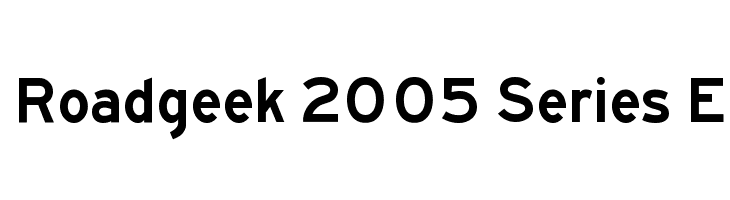
A bold, modern sans-serif font with excellent readability.
设计师偏爱 Noto Sans Thai UI Condensed, GaneshaScript, TitilliumText22L-999wt, Chryse Planitia and Malvinas Signature,因为其造型干净、适用范围广—— 从品牌识别到落地页、海报都能胜任。